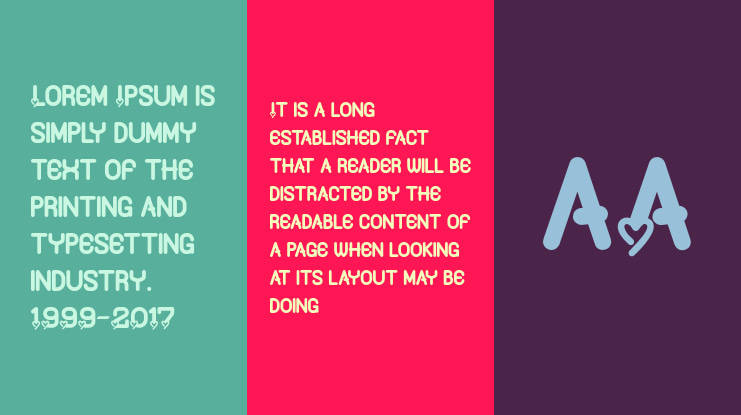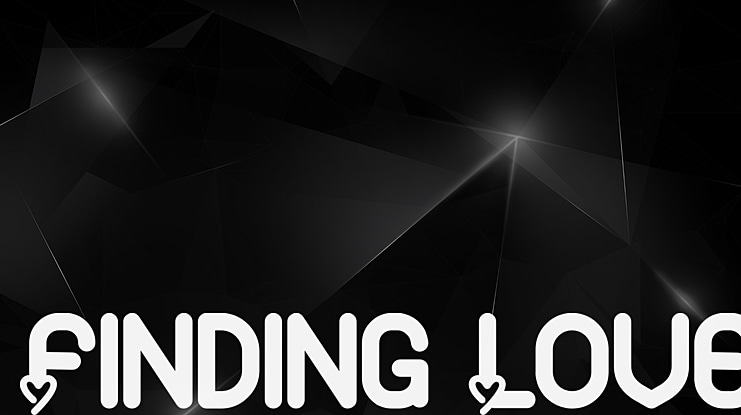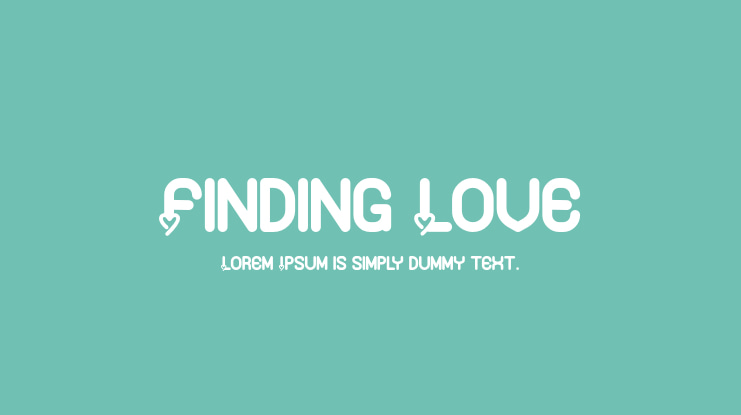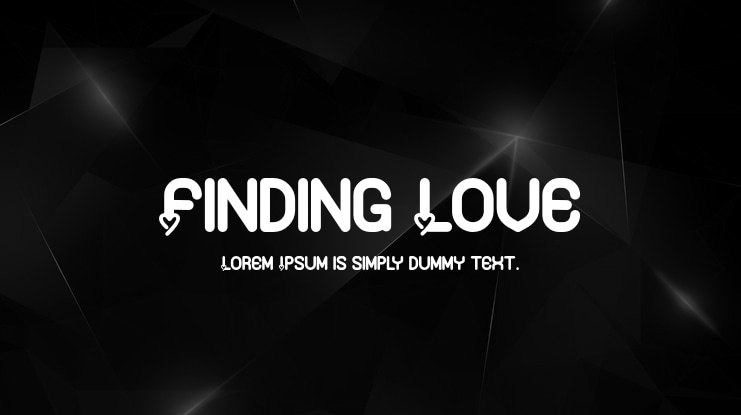
Finding Love Font
Display Studio
Introducing our new release, Finding Love, Lovely Display Type Font. This typeset is perfect for brand logo, invitations, greeting card, or even any kind of project. With multilingual feature and style variations, this typeface would further enhance the aestethical aspect of your work.Visit our website :https://displaytypefont.com/product/finding-love/